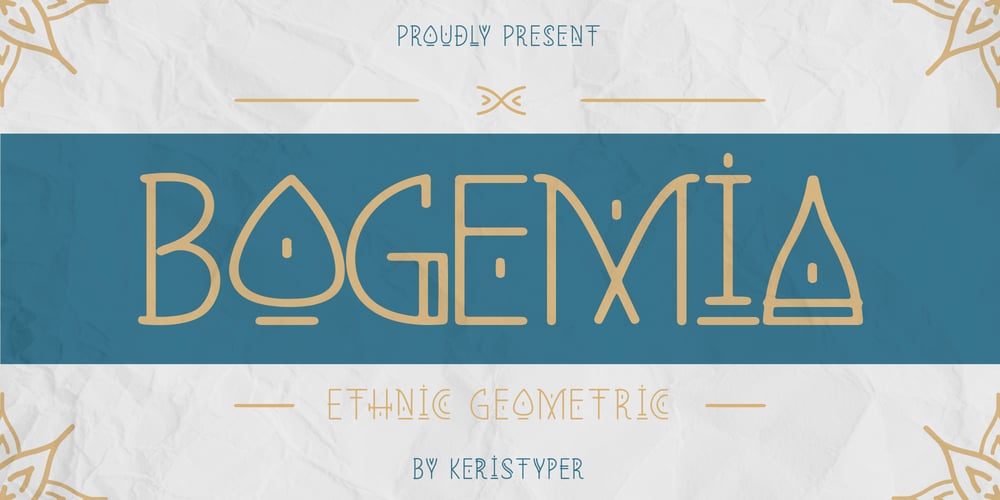
Bogemia Font Family was designed by Tezar Tantular and published by Keristyper Studio. Bogemia contains 1 styles and family package options. Proudly introduce our new font Bogemian decorated with geometric elements inspired by the Boho style. This font is good for logo design, Social media, Movie Titles, Books Titles, short text even long text letters, and good for your secondary text font with sans or serif.**Featured:*** Standard Uppercase & Lowercase* Numeral & Punctuation* Multilingual : ä ö ü Ä Ö Ü ß ¿ ¡* Alternate & Ligature* PUA encodedWe recommend programs that support the OpenType feature and the Glyphs panel such as Adobe applications or Corel Draw. so you can use all the variations of the glyphs.Hope you enjoy our fonts!